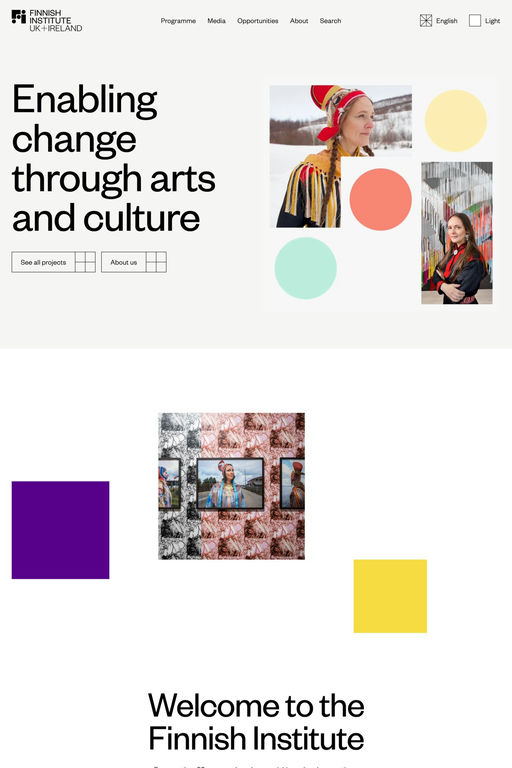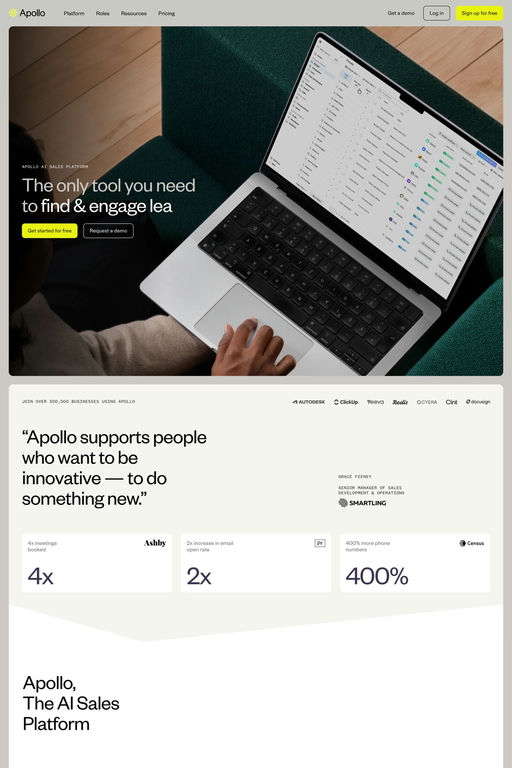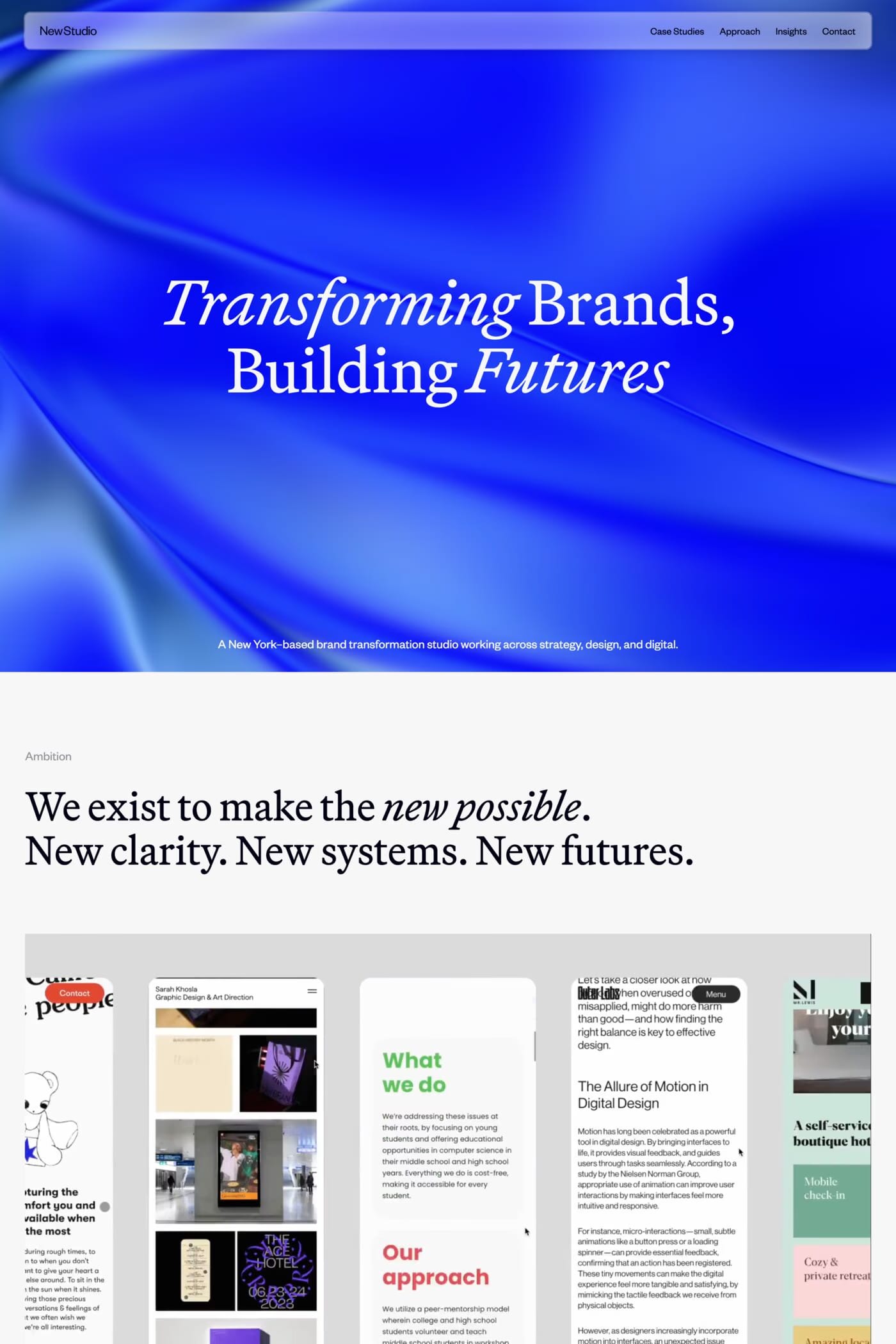
Founders Grotesk is a sans-serif typeface from Klim Type Foundry.
Founders Grotesk is a contemporary amalgamation of classic grotesks. Millar & Richard’s early 20th century Grotesque series provided rudimentary geometry, serpentine curves, and the narrow but welcome aperture of certain forms. Further details were inspired by H. W. Caslon’s Doric series from the same era. These details are coupled with tight spacing strategies from Helvetica’s Halbfett (Medium) headline-sized metal cuts from the late 1950s. Founders Grotesk is not intended as strict revival, it resolves the best details from the last century into a large family designed for modern typography.